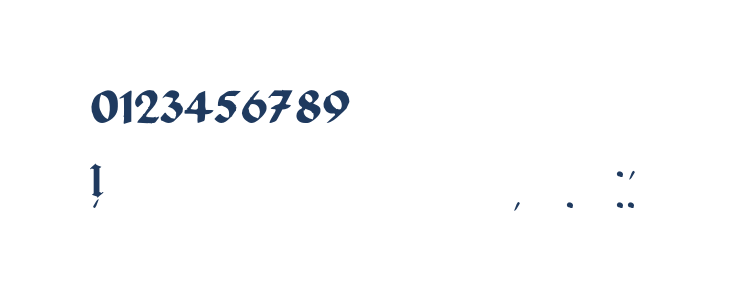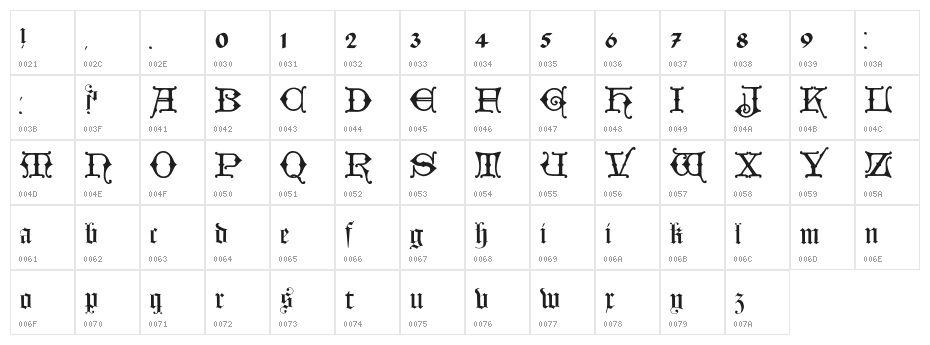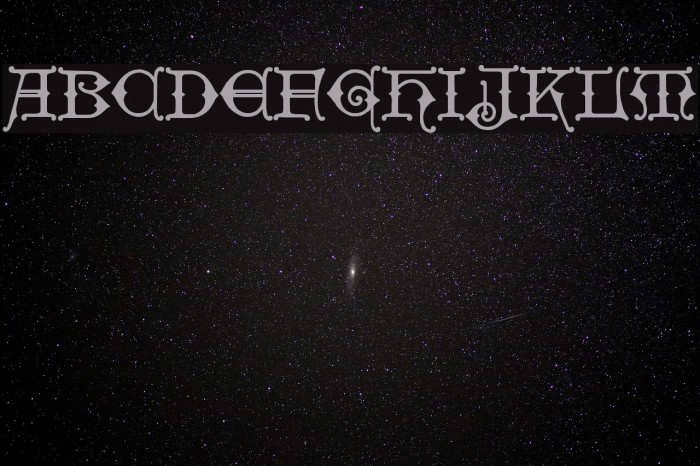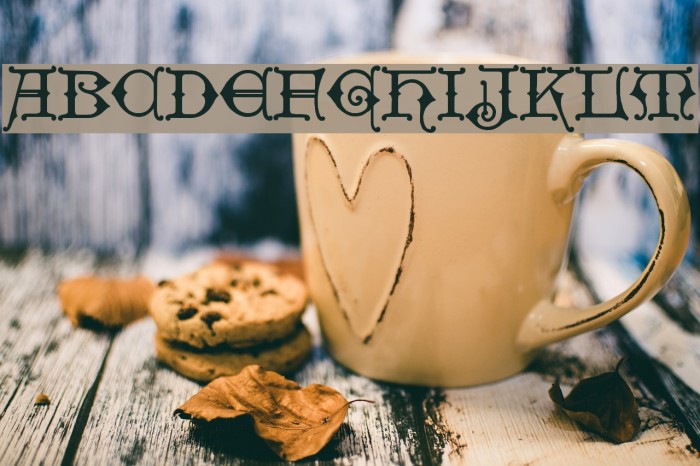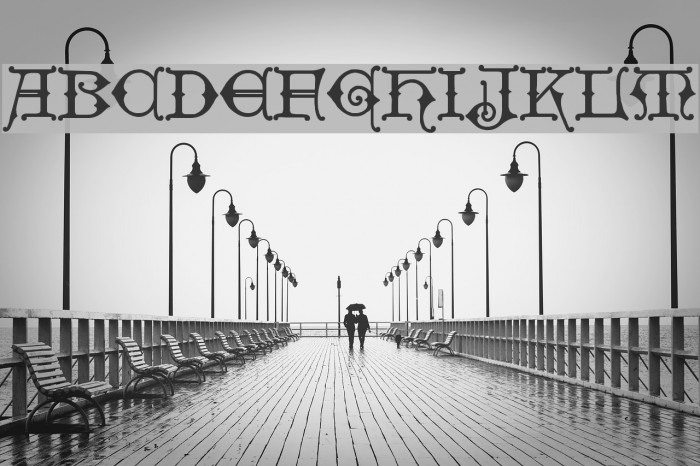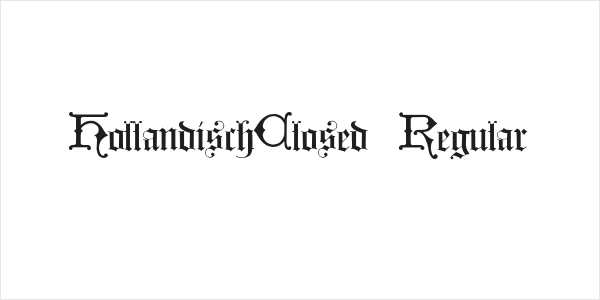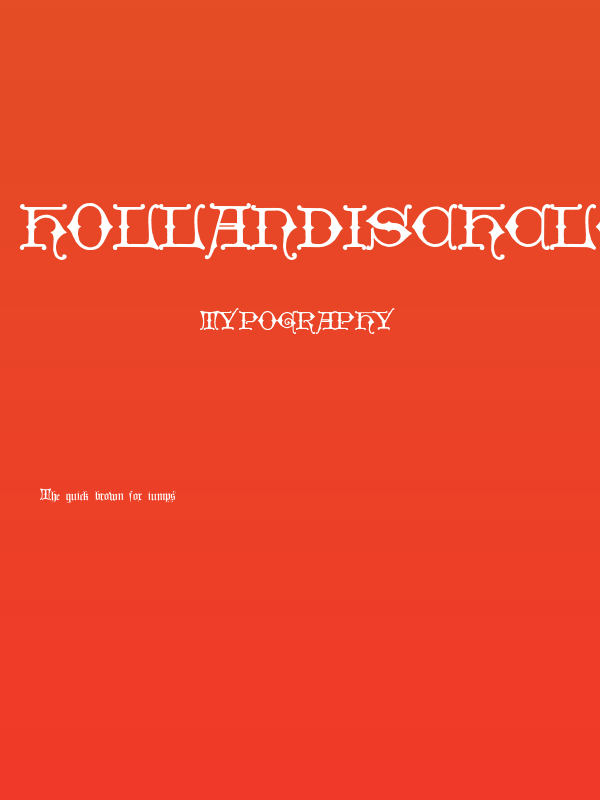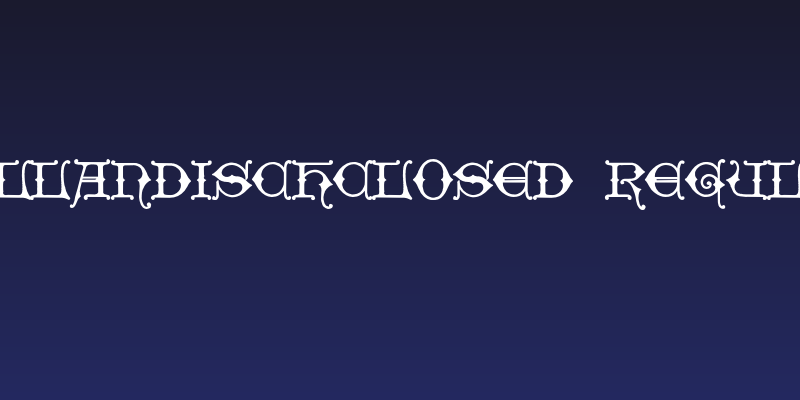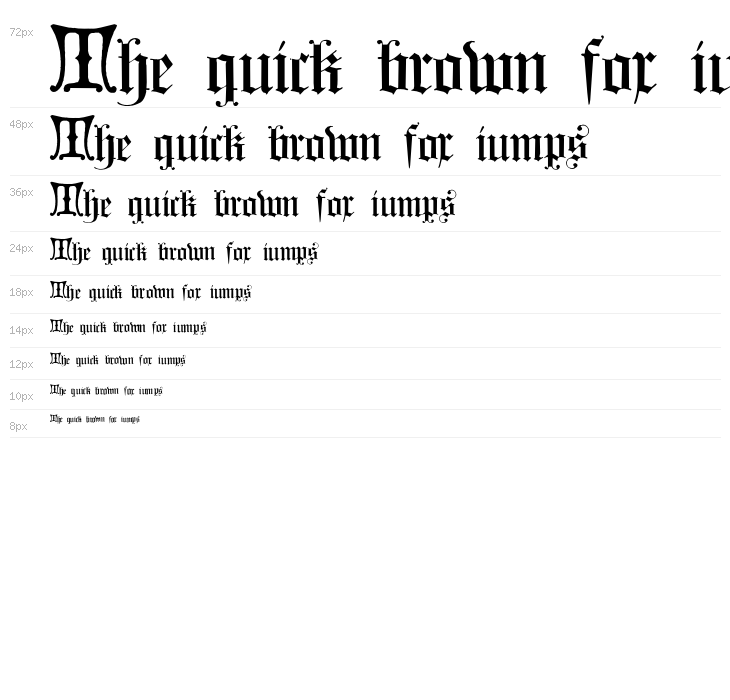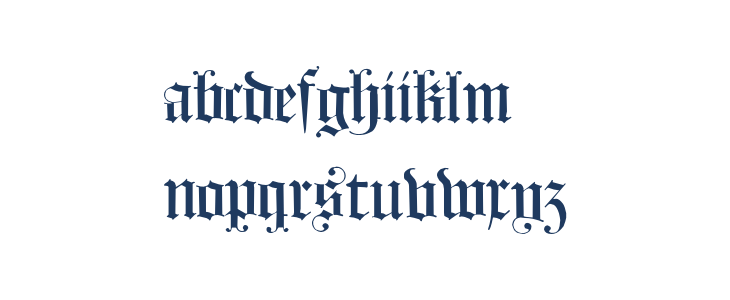
HollandischClosed-Regular Font
HollandischClosed-Regular Description
This font exhibits a traditional and intricate design, reminiscent of historical scripts with a modern twist. The uppercase letters are characterized by elaborate flourishes and sharp angles, creating a sense of elegance and sophistication. The lowercase letters maintain a similar style, with a slightly more compact form, allowing for readability while preserving the decorative elements. The numerals are bold and consistent with the overall aesthetic, ensuring they stand out while maintaining harmony with the alphabet. Special characters are thoughtfully integrated, adding to the font's versatility. This font is ideal for projects that require a touch of classic elegance and historical charm.
| Proposed Projects | Ideal for wedding invitations, historical documents, branding for luxury products, and decorative signage. |